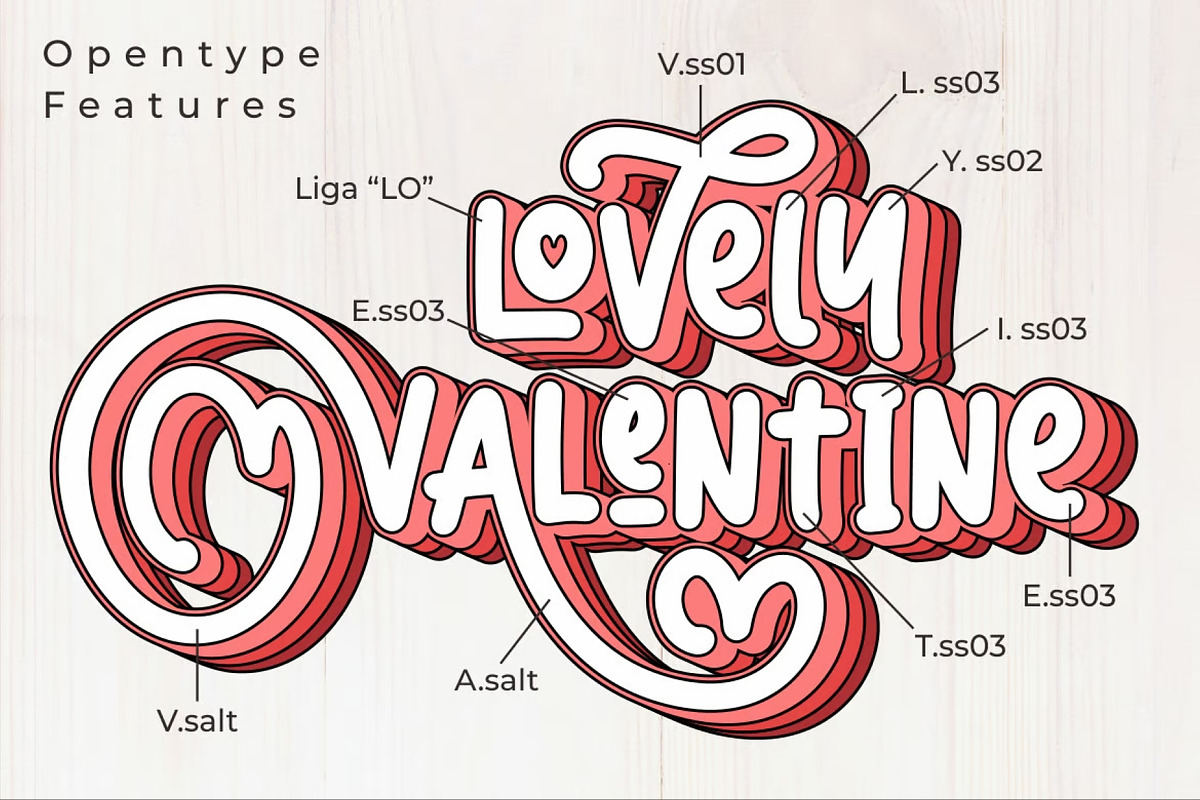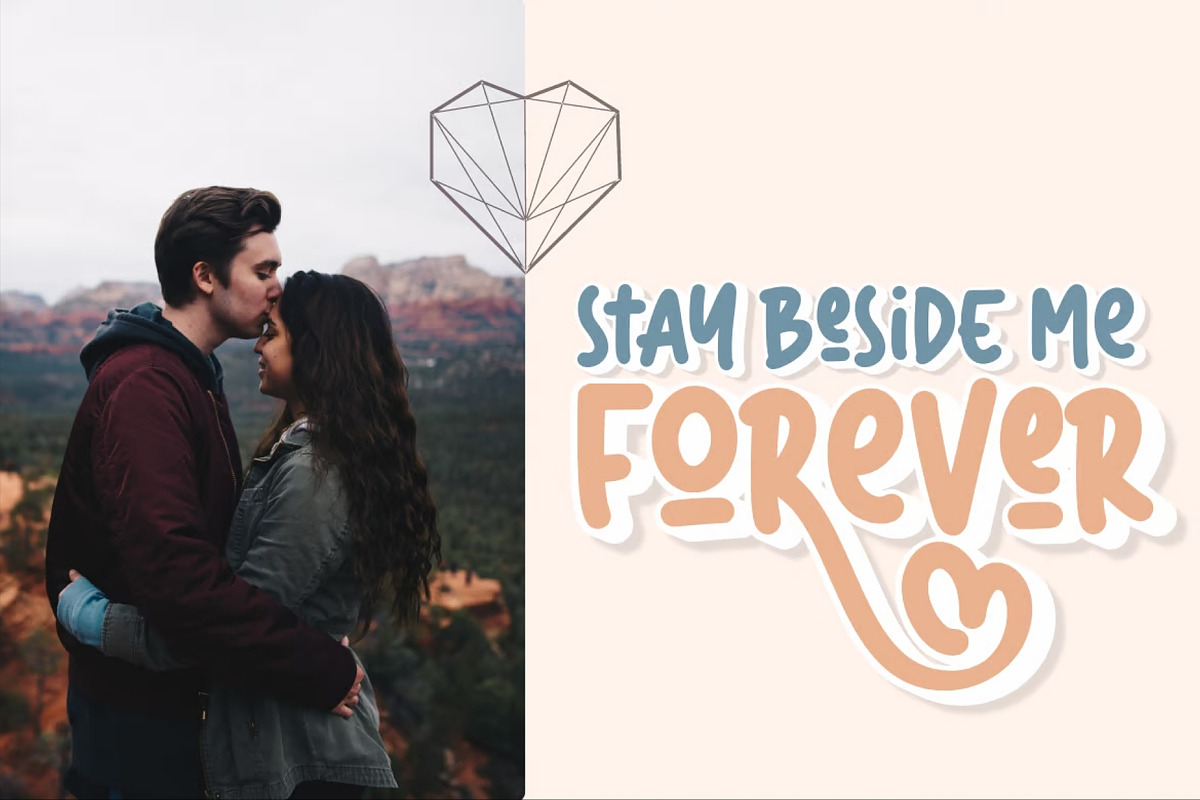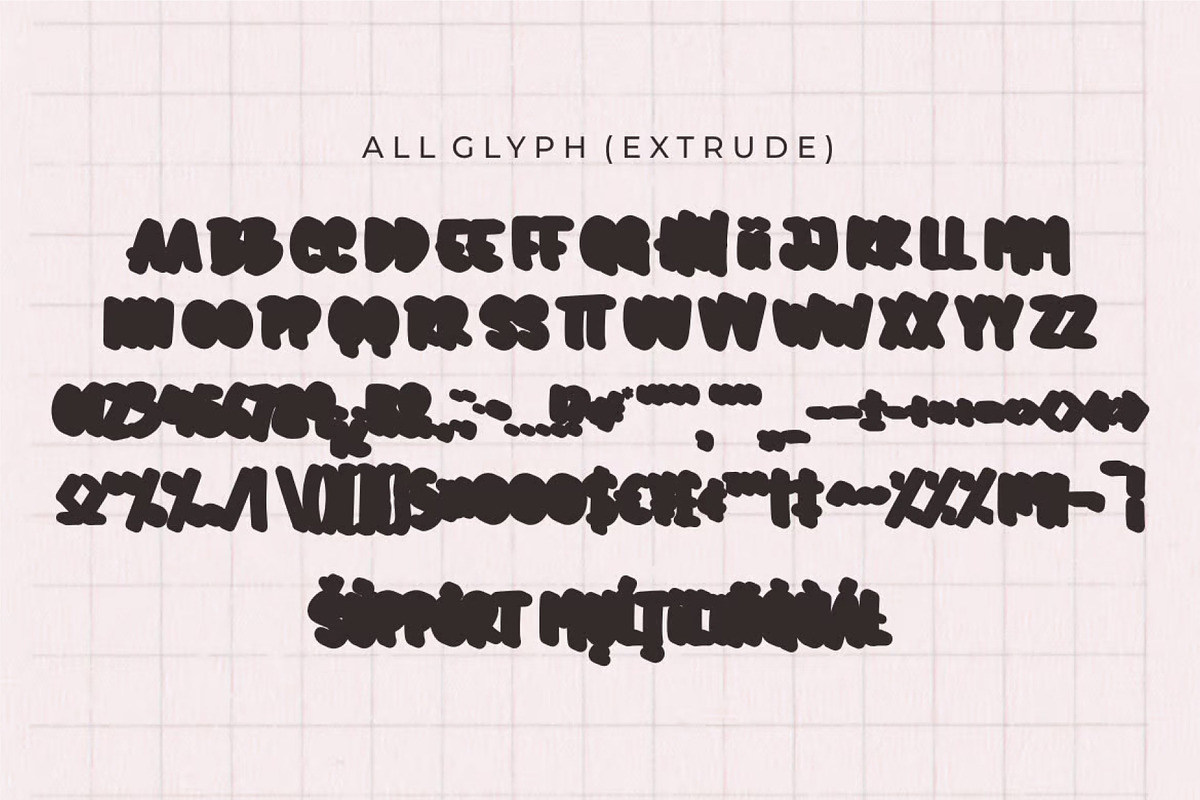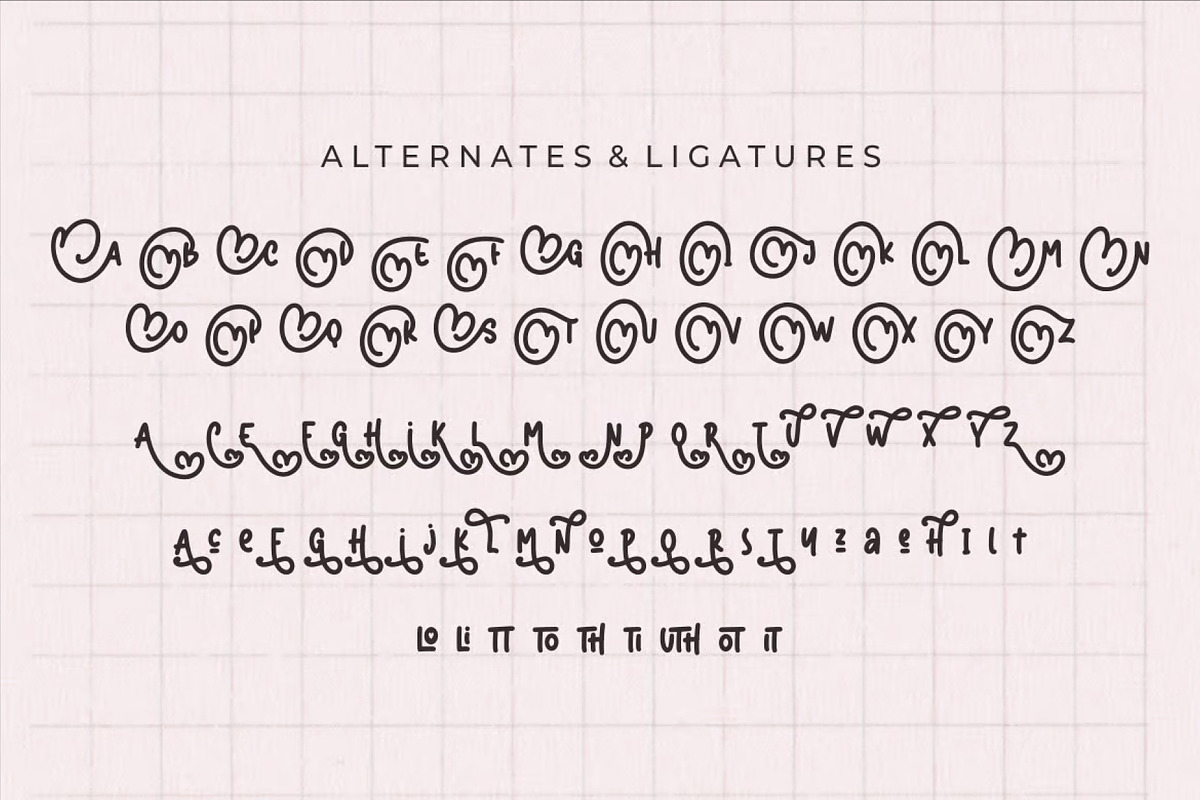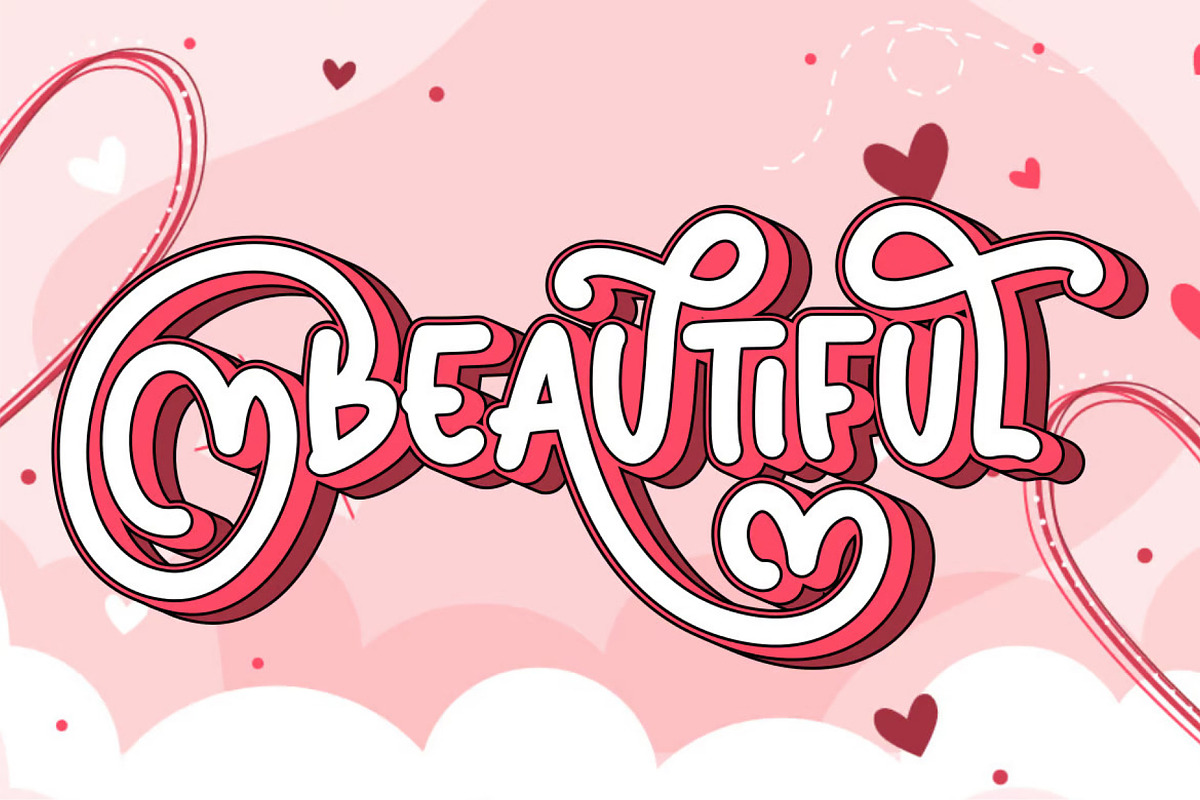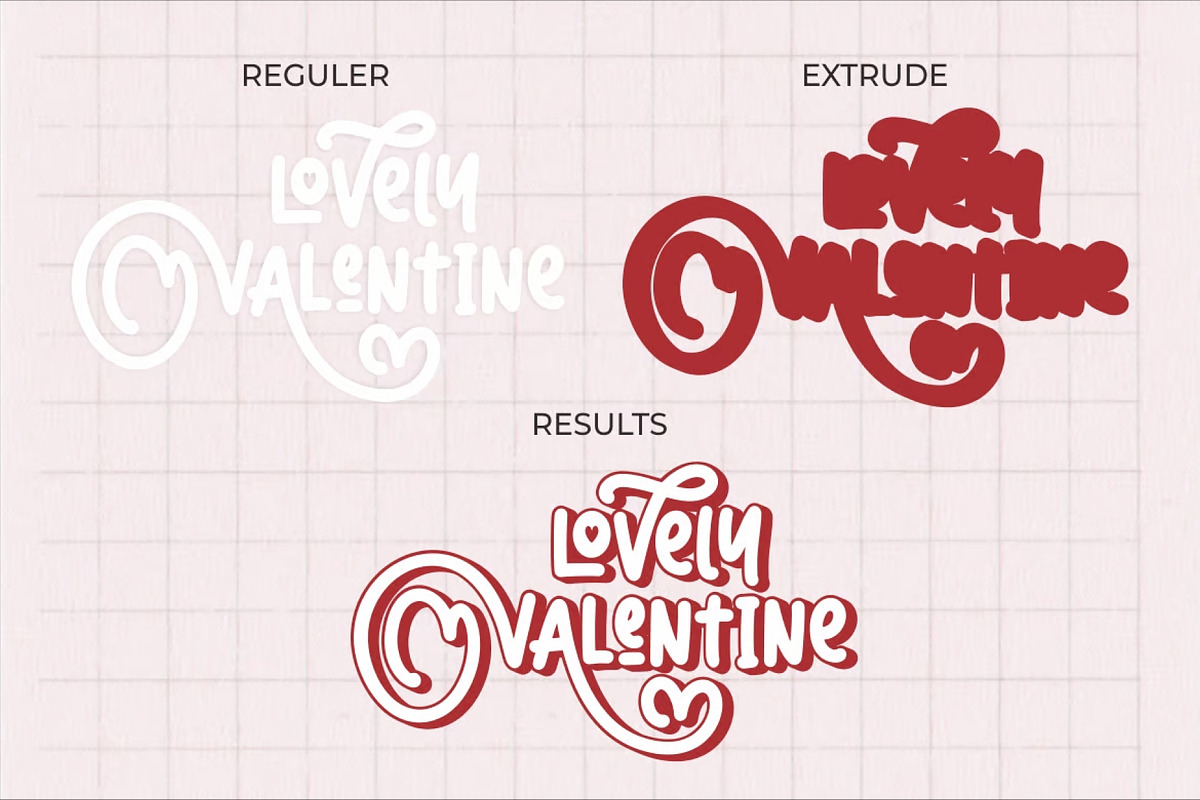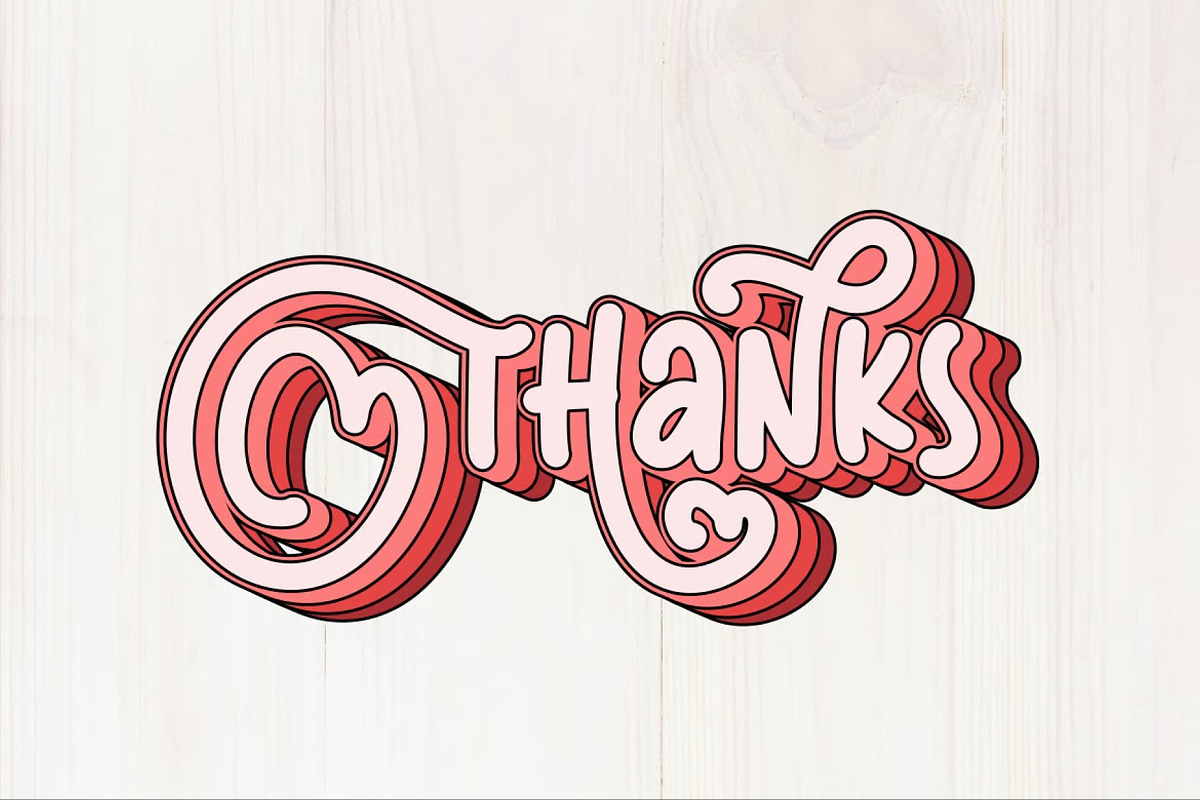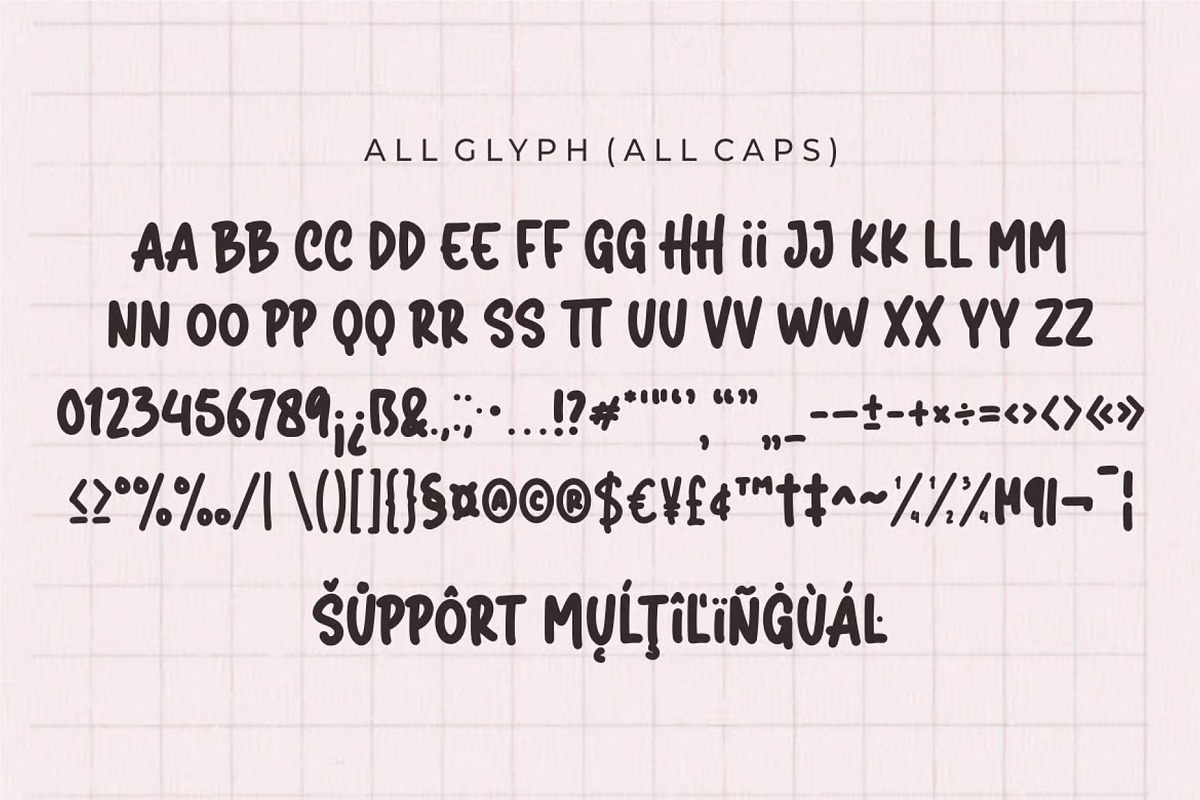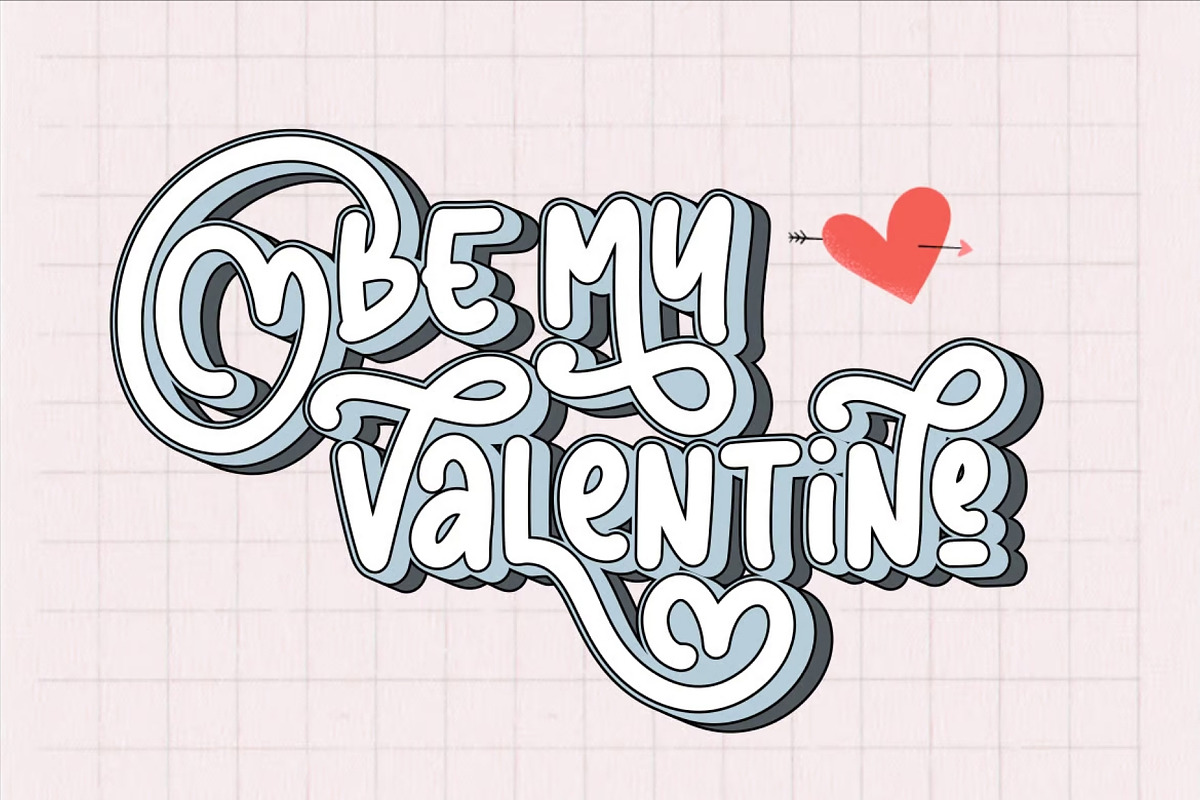
Lovely Valentine Display Font
Lovely Valentine Font - A Perfect Choice for Romantic Designs
Introducing Lovely Valentine, a charming Valentine's display font that comes with an extruded version. This versatile font is perfect for all your design projects, especially those with Valentine's or wedding themes. Use it to add a touch of love to social media posts, quotes, stickers, image overlays, logos, posters, print materials, website banners, and more.